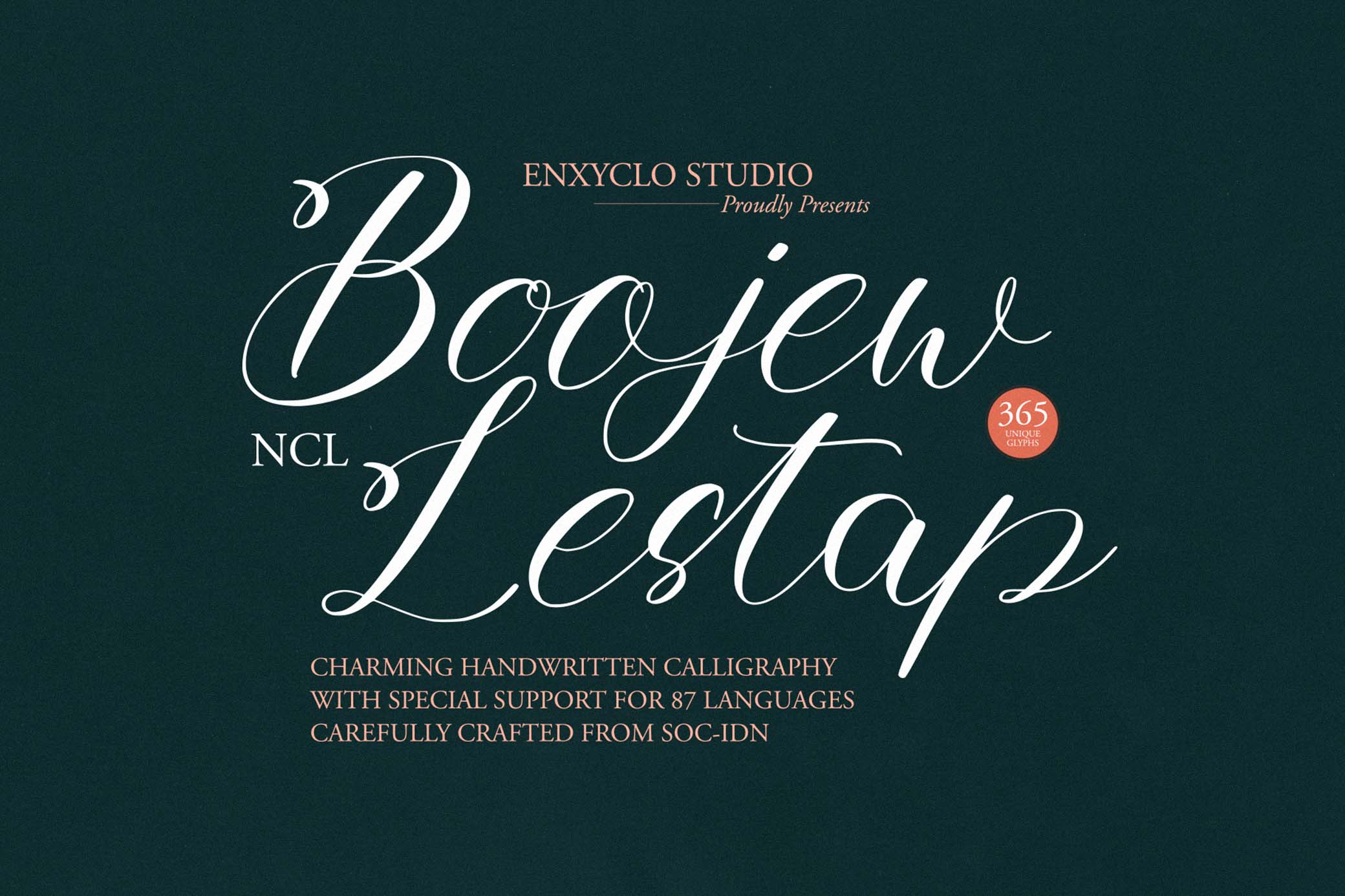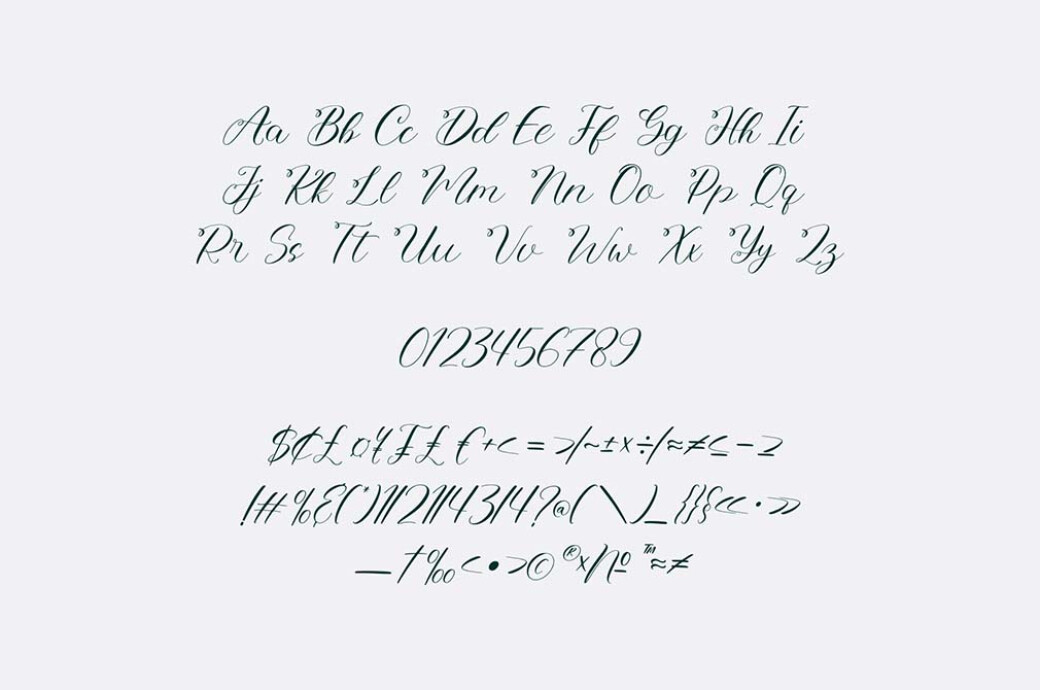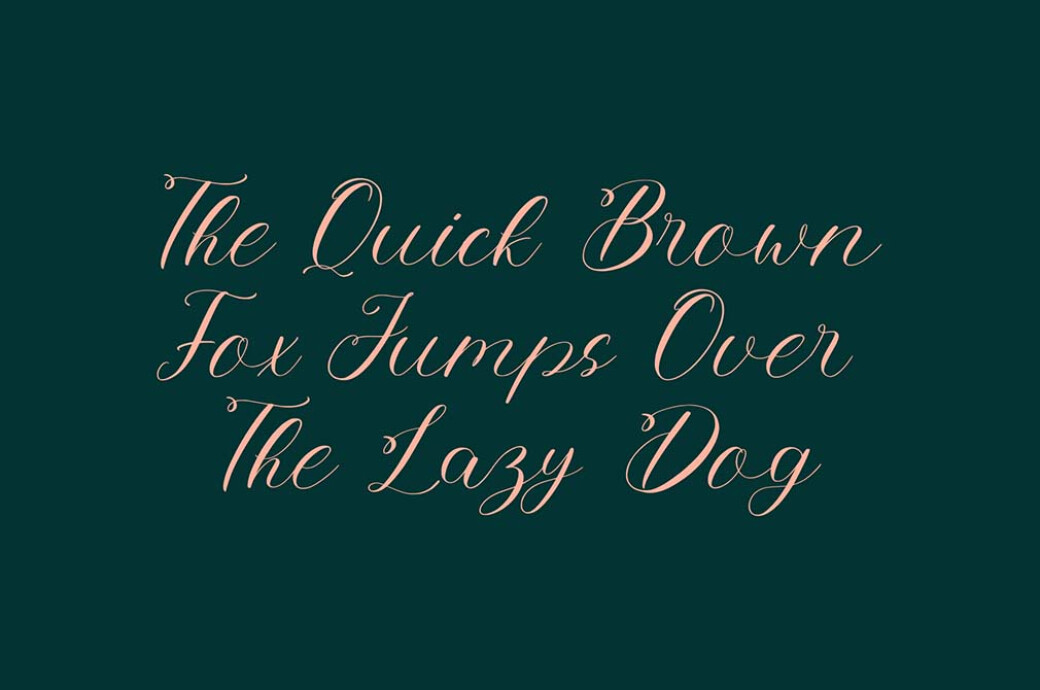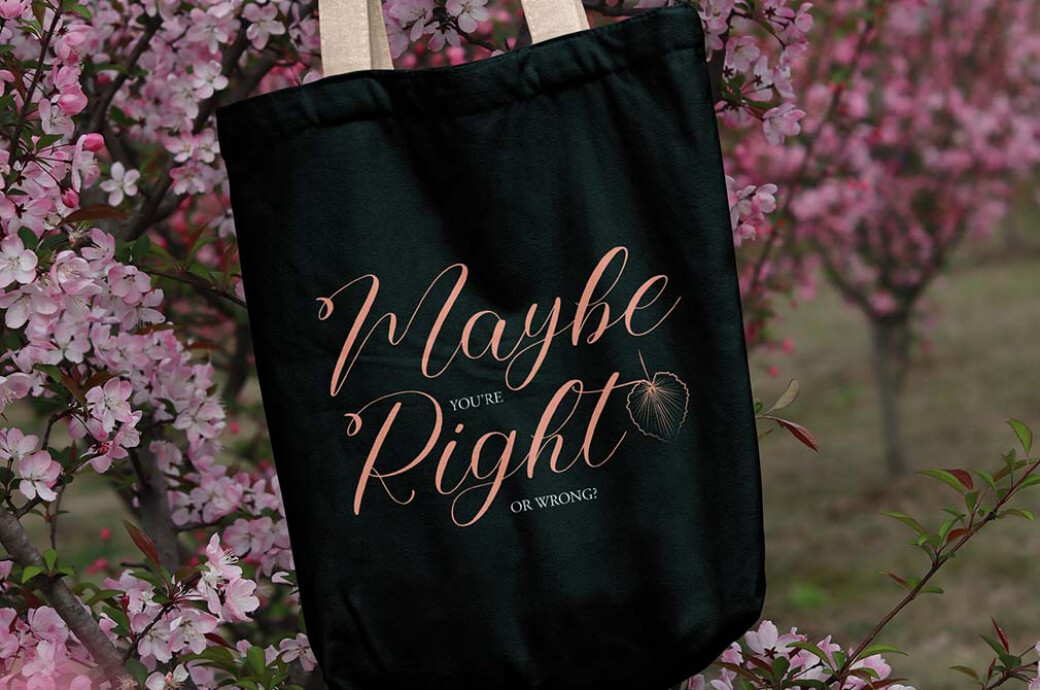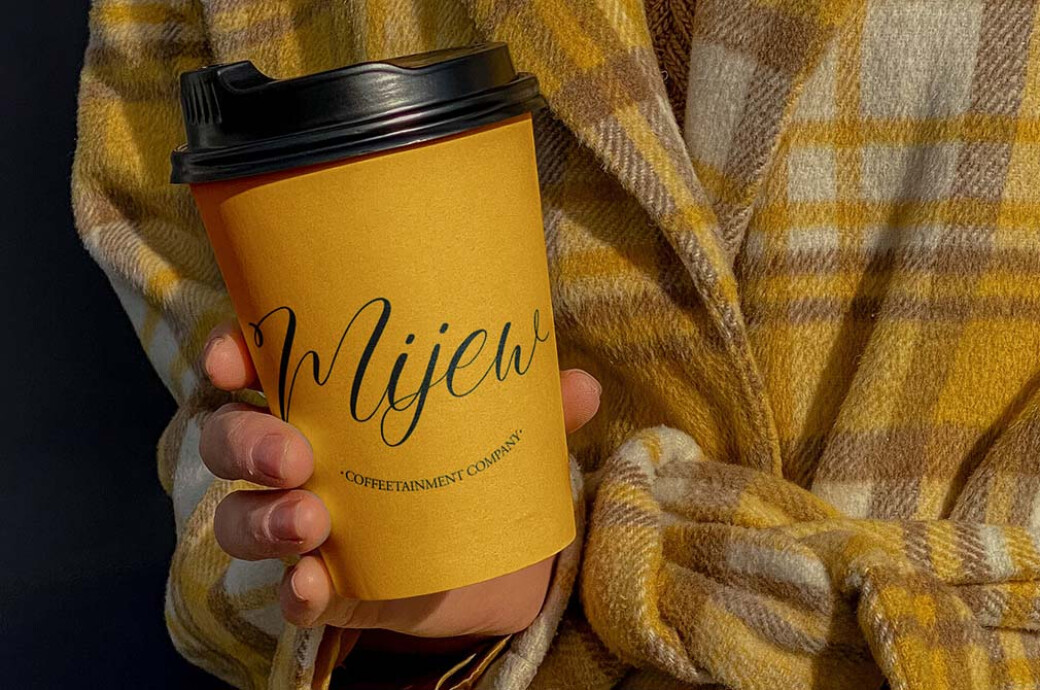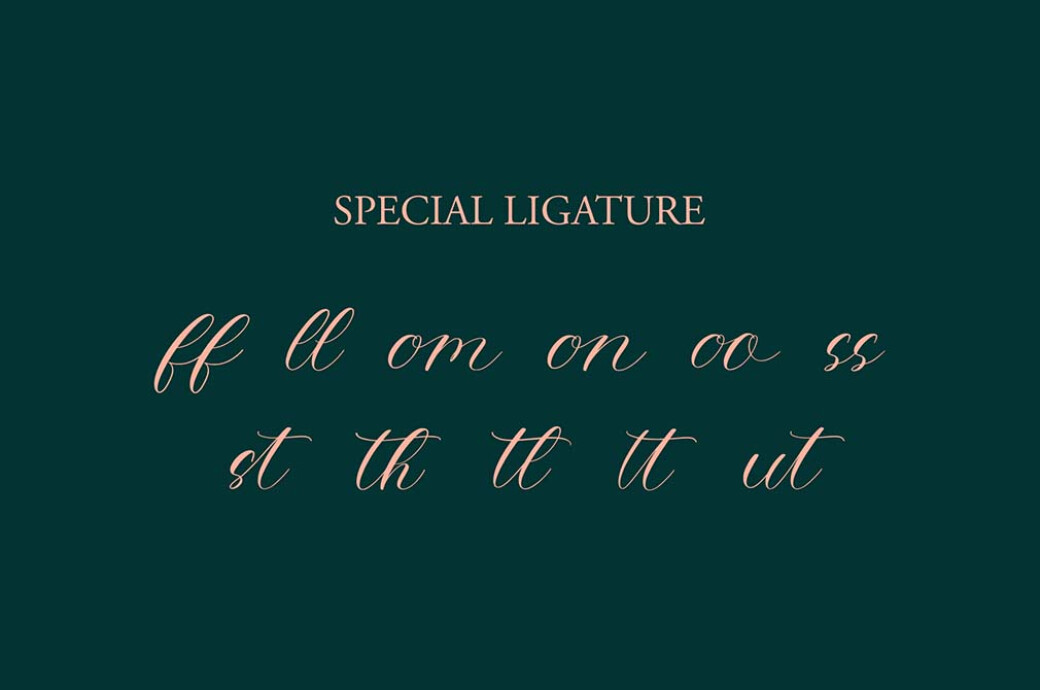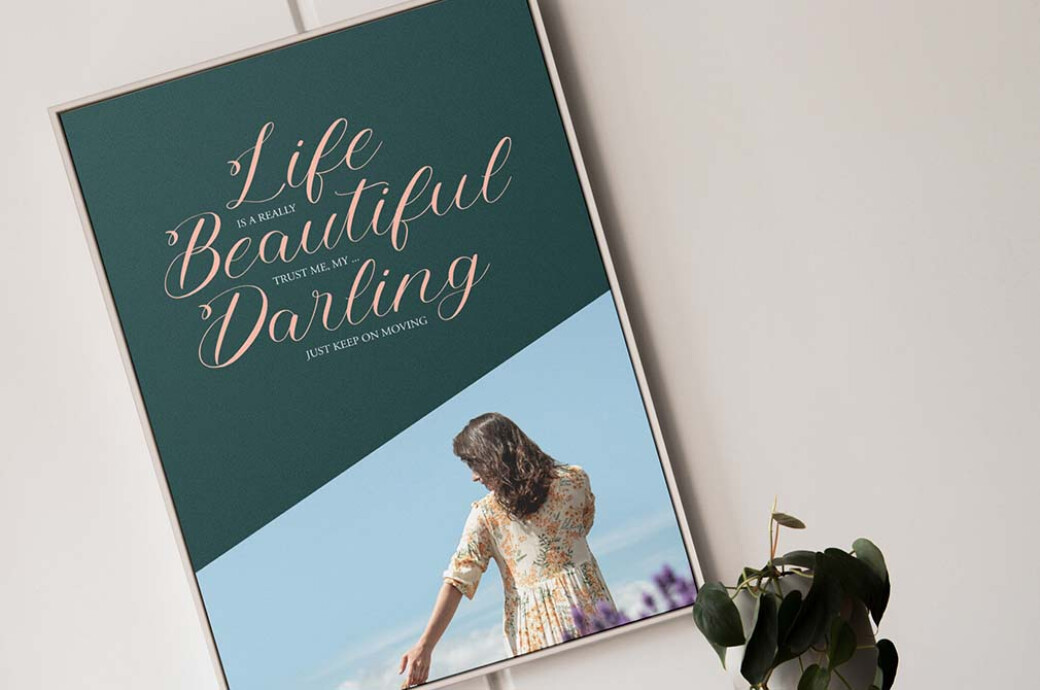
Boojew Lestap Script Font
Dancing gracefully across the page, Boojew Lestap is a font that breathes life into every letter. It whispers tales of elegance, gently crafting an intimate narrative within each stroke.Unleashing the power of Boojew Lestap on your designs can provide a captivating visual experience, its artistic charm lacing your projects with a delightful sense of allure. Offering uppercase, lowercase & numeral, punctuation, symbols and 11 special ligatures, this font provides an expansive typographical palette to play with. The beauty of Boojew Lestap lies not only in its versatility but also in its ability to imbue your works with a sense of serenity and sophistication, prompting feelings of tranquillity and understated elegance.